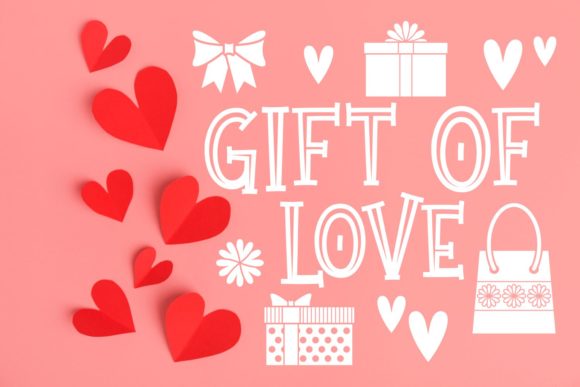
The Hungary Font: A Playful Display Typeface for Makers
There is a specific moment in every product design session where the layout feels technically correct but emotionally flat. Last Tuesday, while finalizing a label for a new line of soy candles, I hit that exact wall. The minimalist sans serif I had chosen was clean and legible, yet it lacked the warmth and artisanal charm that my customers expect from handmade goods. That is when I decided to test The Hungary, a playful display font with a friendly style that promised to bridge the gap between professional polish and handcrafted authenticity. After spending the afternoon applying this typeface across candle labels, sticker sheets, and digital download mockups, I can confidently say it transforms the perceived value of creative projects.
The Hungary for Handmade Candle Labels and Product Packaging
When evaluating The Hungary among other Display Fonts for physical packaging, the primary concern is always how the letterforms translate from screen to substrate. In my testing on matte vinyl candle labels, this typeface proved exceptionally versatile. The weight of the strokes is substantial enough to remain crisp when printed at smaller sizes, which is crucial for 2x3 inch jar labels where space is premium. Unlike some overly ornate script fonts that bleed or lose definition on textured paper, The Hungary maintains its integrity. Its playful curves add a sense of approachability to scent names like "Lavender & Sage" or "Vanilla Bean," instantly signaling to the buyer that this is a small-batch, lovingly made product rather than a mass-produced commodity.
However, practical application requires restraint. While The Hungary is perfectly suited for a wide variety of projects, it shines brightest as a headline or focal point. On my test labels, I used it exclusively for the product name and scent descriptor. For the mandatory safety text, burn instructions, and net weight, I paired it with a simple, geometric sans serif. This contrast not only ensures regulatory compliance and readability but also makes the decorative elements of The Hungary pop even more. If you are designing packaging for boutique soaps, jams, or candles, this font creates an immediate emotional connection without sacrificing the clarity needed for retail environments.
Using The Hungary for Wedding Stationery and Event Signage
Applying The Hungary to wedding invitations and event branding demonstrates why this display category of fonts is so valuable for stationery designers. I created a mockup for a rustic-chic wedding welcome board, and the font’s friendly personality struck the perfect balance between elegance and whimsy. It avoids the stiffness of traditional formal scripts while steering clear of the childishness that can plague casual handwritten styles. This makes it an ideal candidate for modern couples who want their stationery to feel personal and relaxed yet still appropriate for a milestone celebration.
For cutting machine users creating acrylic table numbers or wooden place cards, the connectivity and stroke consistency of The Hungary are significant assets. During my test cuts on cardstock, the letters held together well without fragile points that typically snap during weeding. This structural reliability saves time and material waste. When designing invitation suites, consider using The Hungary for the couple’s names, venue details, or section headers like "Reception" and "Ceremony." Just remember to check the included alternates and ligatures; utilizing these built-in typographic features prevents repetitive letter shapes and adds that bespoke, custom-lettered look that commands higher prices in the stationery market.
The Hungary for Digital Printables and Social Media Templates
In the realm of digital products, The Hungary serves as a powerful hook because display fonts must capture attention within seconds on crowded marketplace feeds. I tested this typeface on printable wall art quotes and Instagram story templates for a small business coaching brand. On screen, the font’s unique character renders beautifully at high resolutions, providing that "scroll-stopping" quality essential for digital sales. For printable planners and journal covers, The Hungary adds a layer of delight that turns a functional document into an inspiring keepsake.
Creators selling editable templates should note that The Hungary works best when pre-set in specific text boxes designated for titles or short phrases. Because it is a distinctive display face, it is not suitable for body copy or long-form journaling prompts. In my template mockups, I explicitly labeled text layers to guide customers toward appropriate usage, preventing them from accidentally setting paragraphs in a decorative font. Additionally, always verify the commercial licensing terms before including this font in end-products for sale. Ensuring you have the right license for digital distribution or physical merchandise protects your shop and respects the type designer’s work.
Readability and Production Tips for The Hungary on Merchandise
Testing The Hungary on merchandise like tote bags and t-shirts reveals important considerations for production since display fonts behave differently on fabric than on paper. I heat-pressed a design onto a canvas tote, and the friendly, rounded forms transferred smoothly. However, because the font has playful variations in stroke width, very thin connecting lines can sometimes be vulnerable during the washing process if not sized correctly. For apparel and textiles, I recommend keeping the minimum height above one inch to ensure longevity. On mugs and tumblers, the font wraps beautifully around curved surfaces due to its balanced proportions, making it excellent for personalized name designs or short inspirational messages.
It is equally important to recognize where The Hungary might not be the right tool. During my review, I attempted to use it for dense ingredient lists and technical specifications on a skincare box, and the result was cluttered and difficult to scan. This typeface is designed to evoke feeling, not to convey data. Save it for brand names, taglines, seasonal greetings, and decorative accents. Pairing it with a neutral serif or clean sans serif for informational text creates a harmonious hierarchy that guides the customer’s eye exactly where you want it to go.
- Best Uses: Candle labels, wedding welcome signs, sticker sheets, tote bags, mug designs, printable wall art titles, and social media headlines.
Ultimately, The Hungary is more than just a collection of glyphs; it is a strategic design asset for makers who understand that typography communicates brand values before a single word is read. Whether you are refining your shop’s packaging, launching a new printable collection, or fulfilling custom wedding orders, this playful display font brings a professional yet personable touch that resonates with today’s handmade market. By respecting its strengths and acknowledging its limitations, you can leverage The Hungary to create products that feel as good as they look, turning casual browsers into loyal customers who appreciate the thoughtful details in your craft.